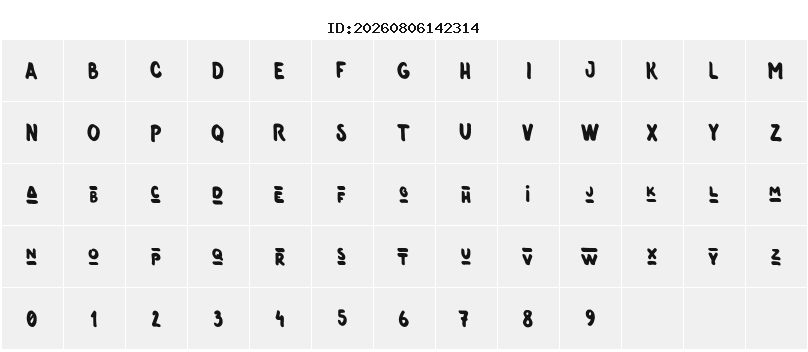
• Font Name: Oneer
Oneer.ttf is a modern, elegant sans-serif font designed for ultimate readability and visual harmony. Perfect for branding, headlines, web design, and print materials.